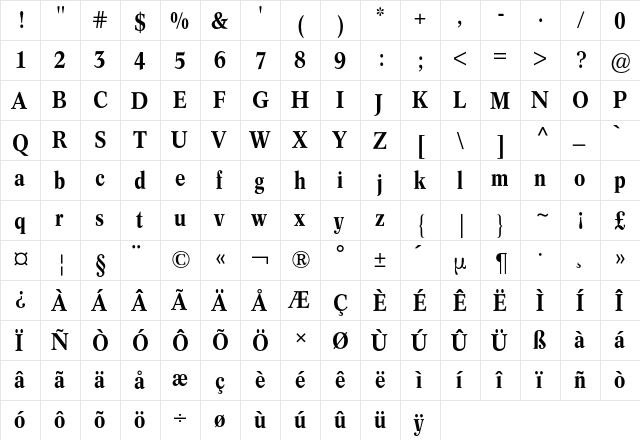
ConcordeCondensedBQ Regular
Design Context for ConcordeCondensedBQ Typeface
ConcordeCondensedBQ offers clean, dependable letterforms without strong stylistic allegiance, making it a practical choice for designers who need flexibility. The condensed width makes it efficient for tight spaces without sacrificing legibility.